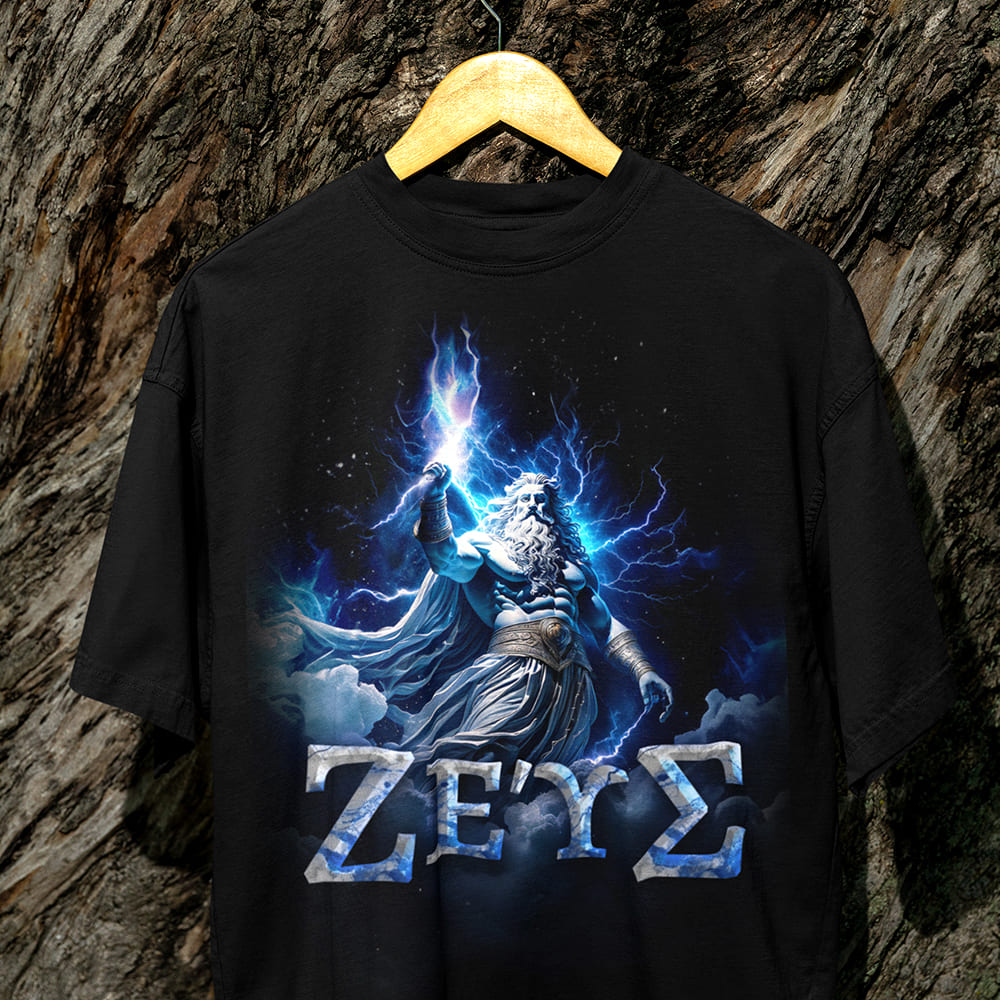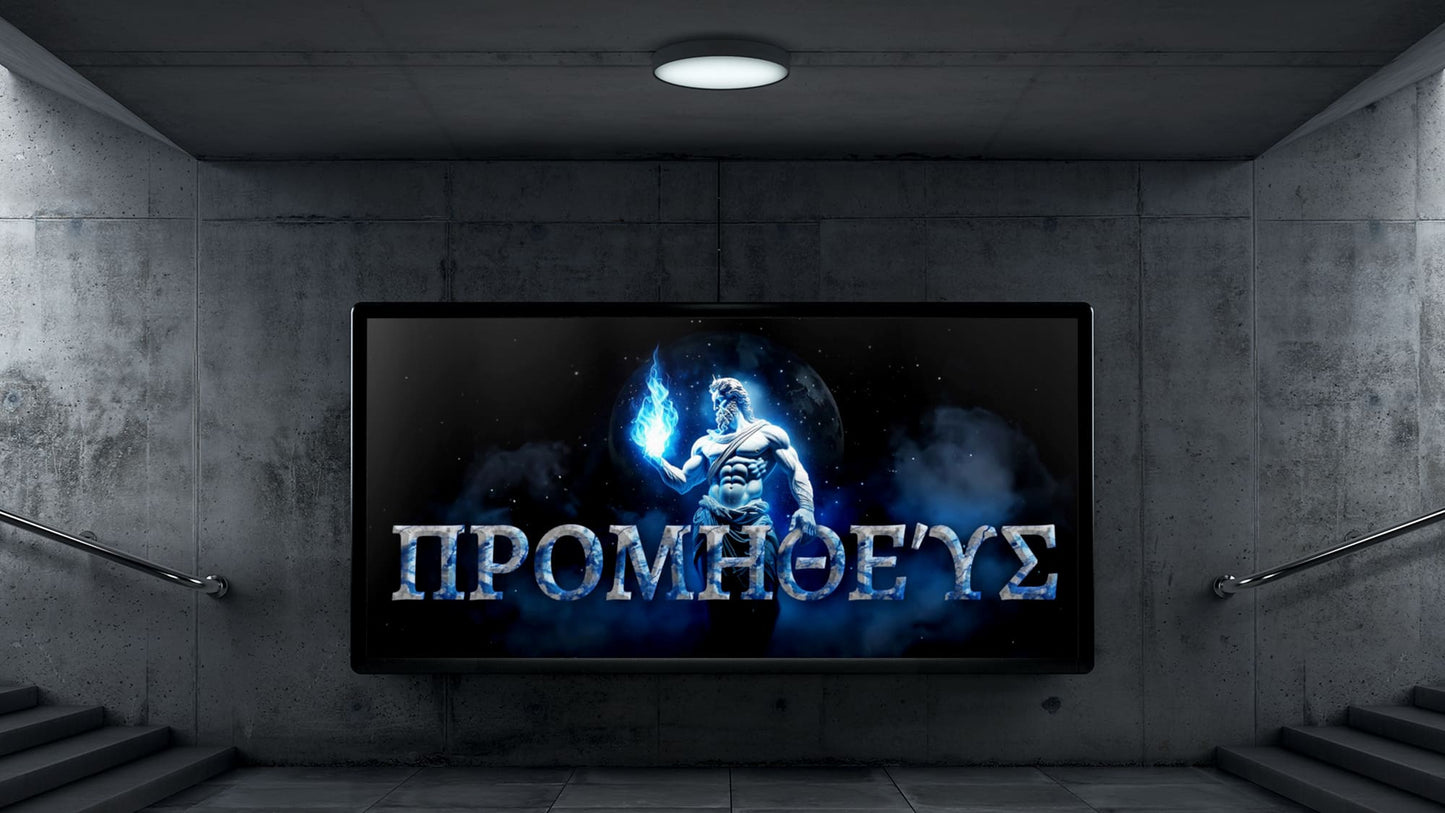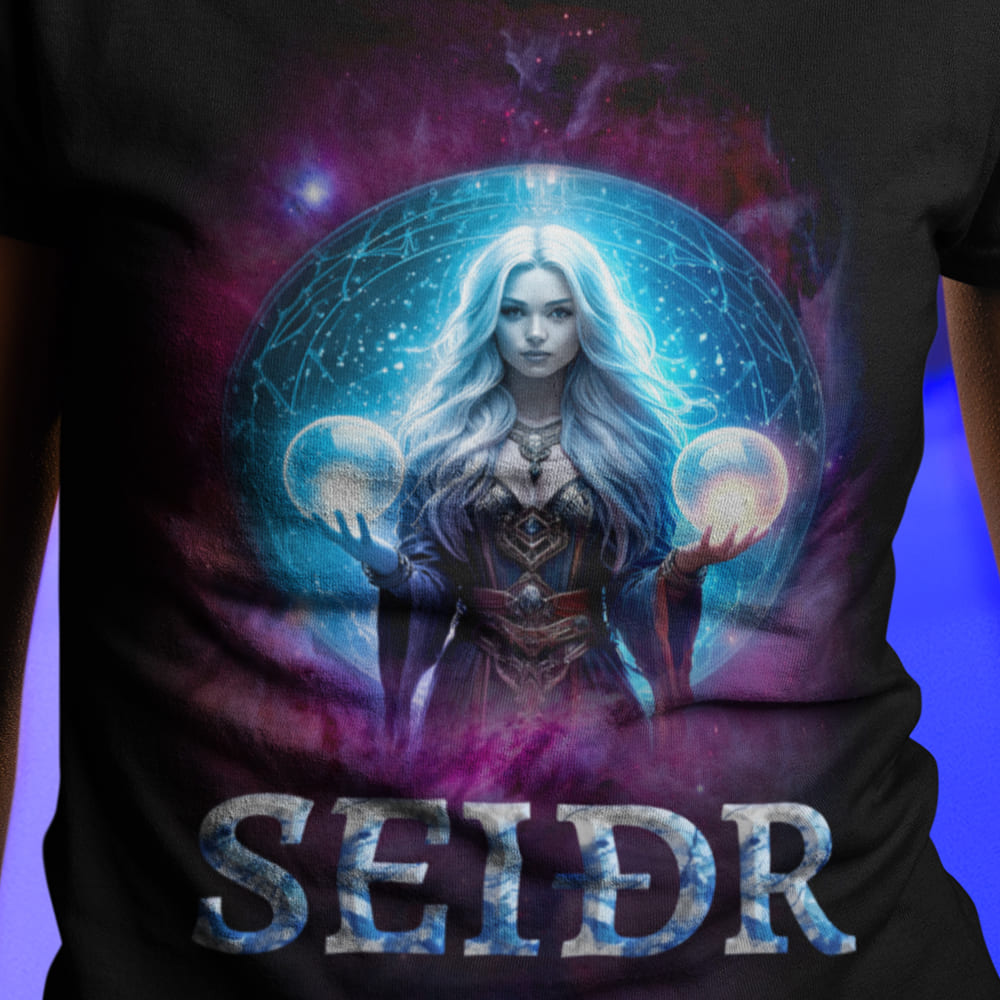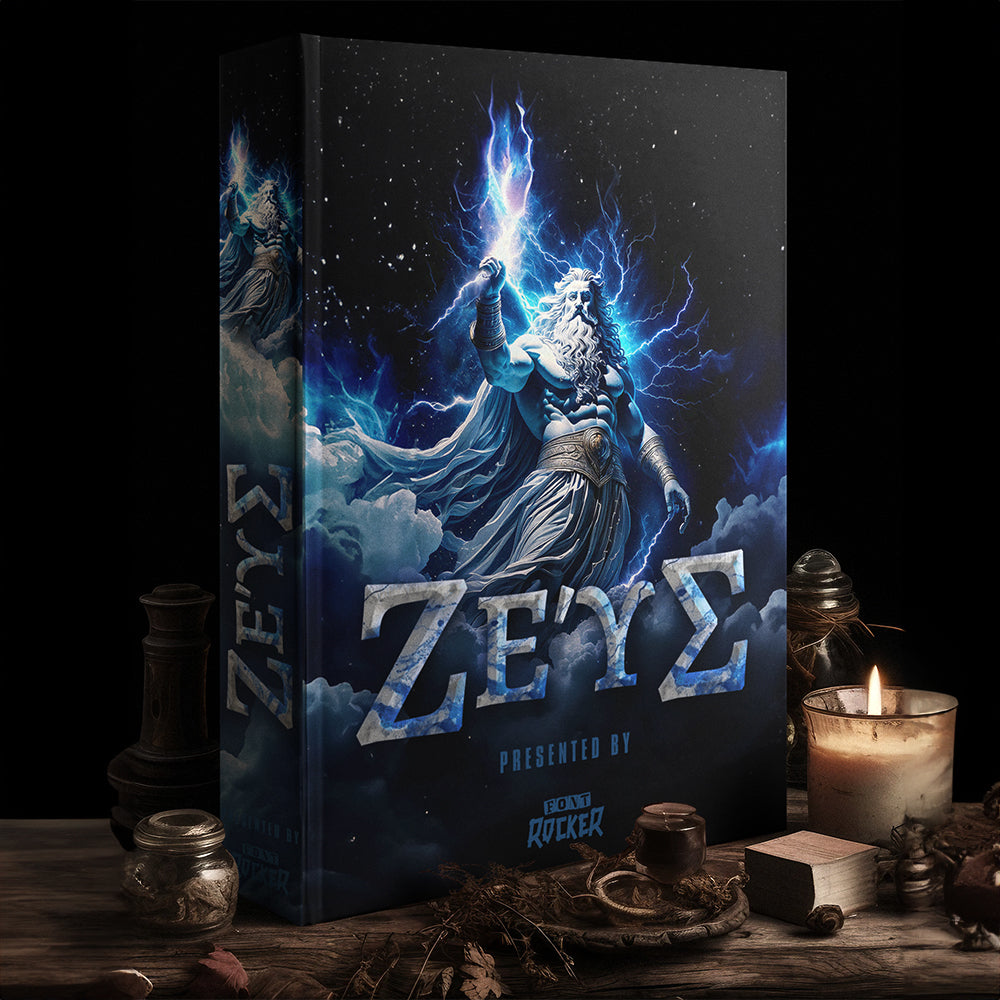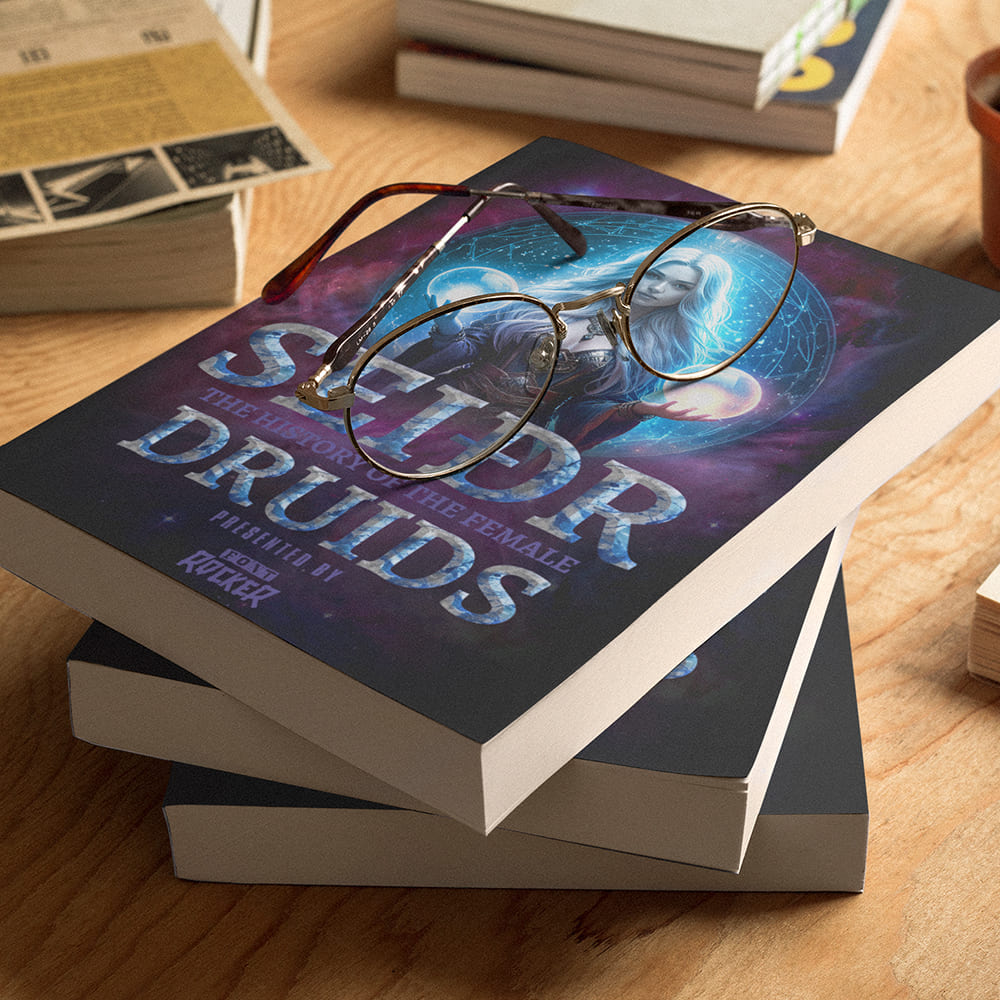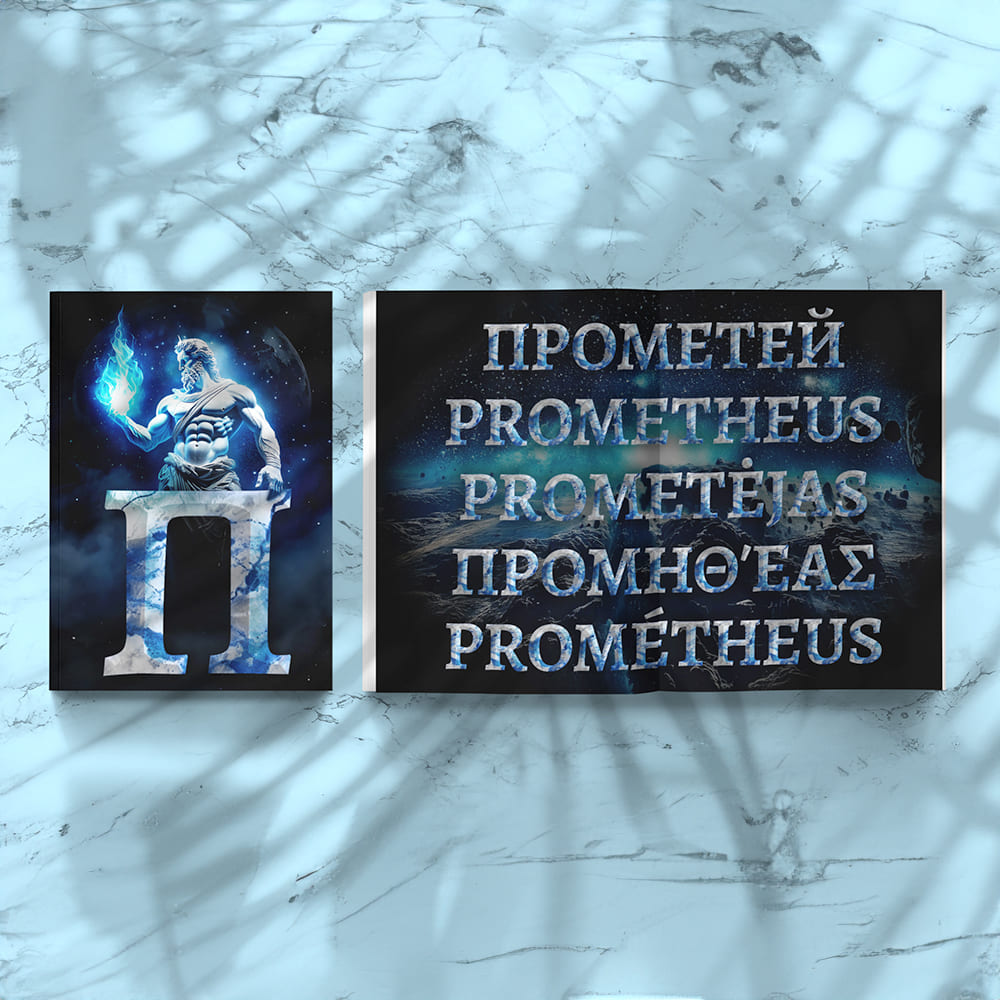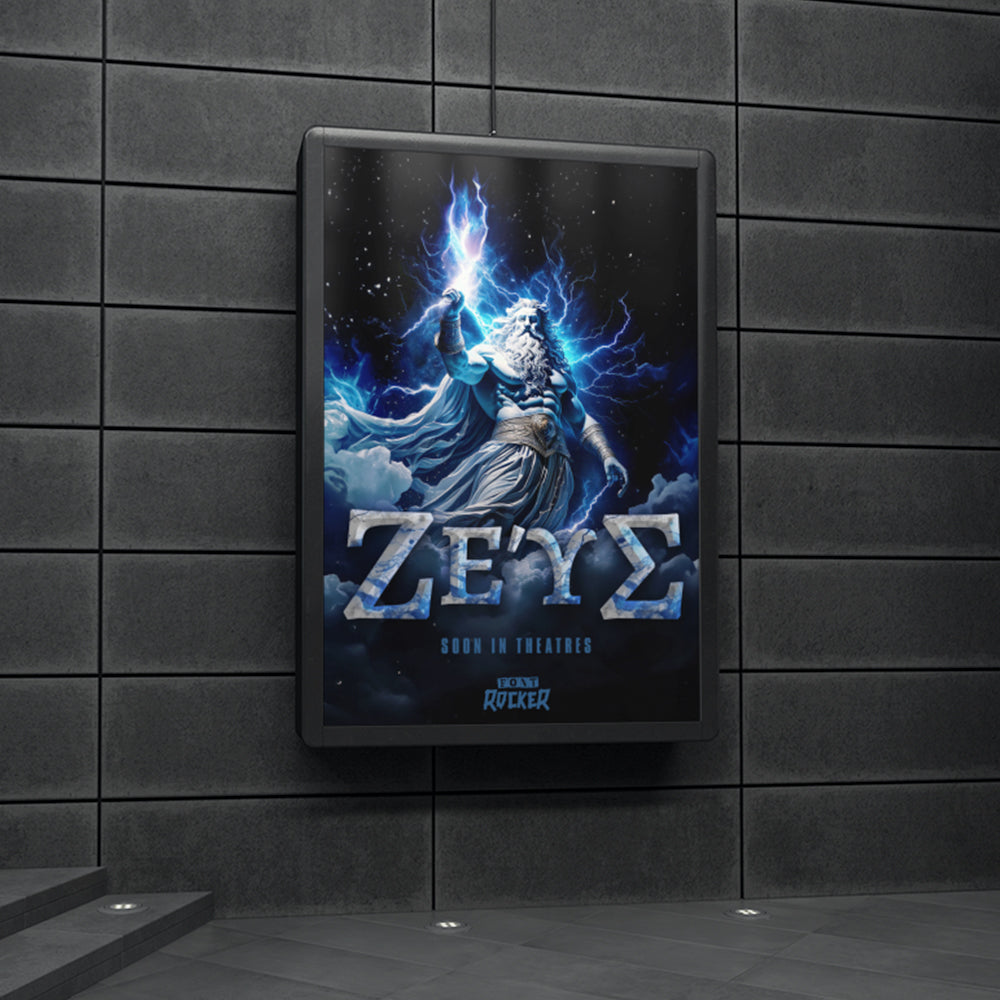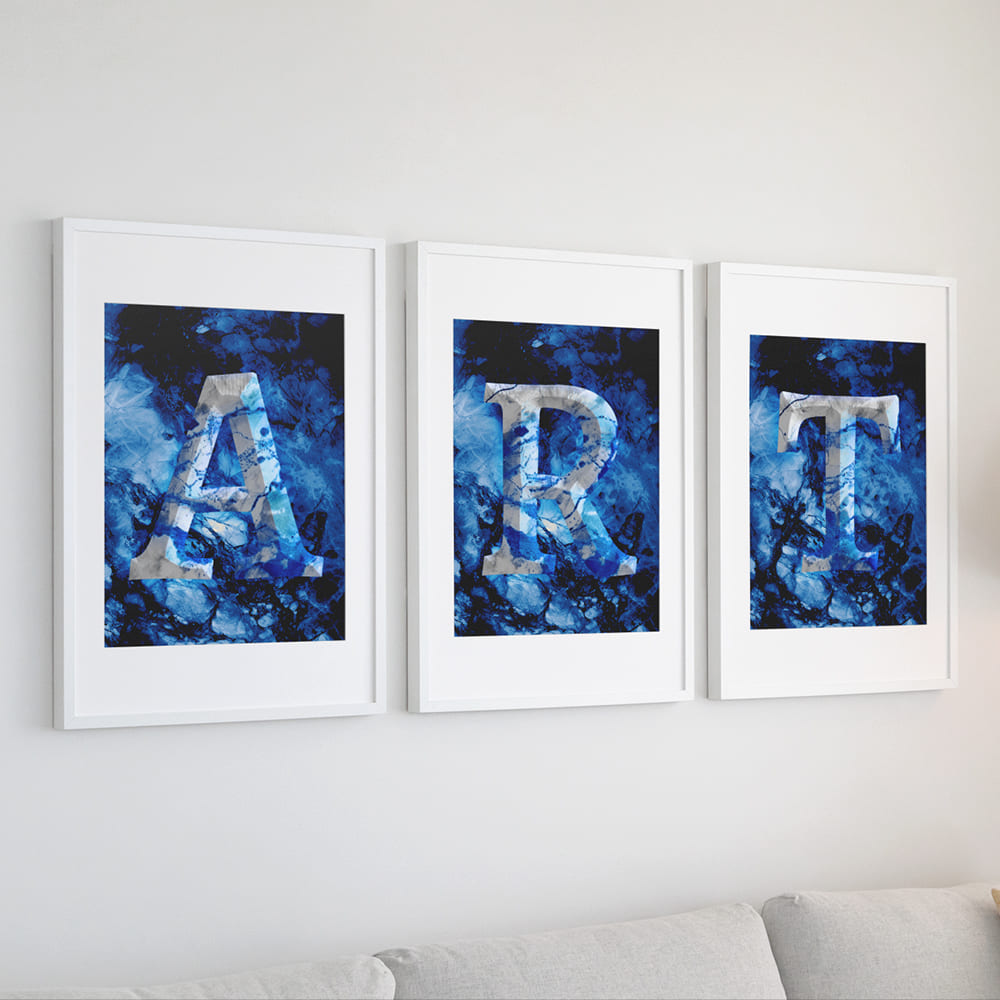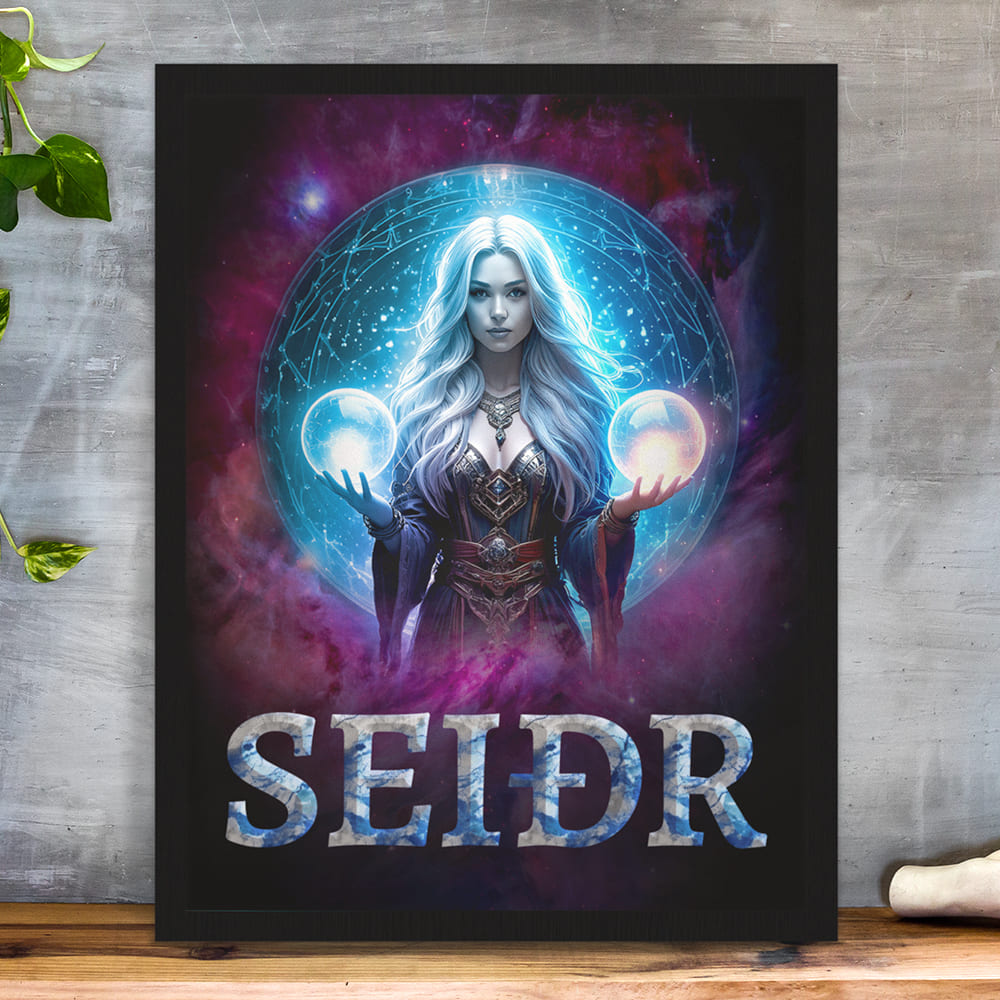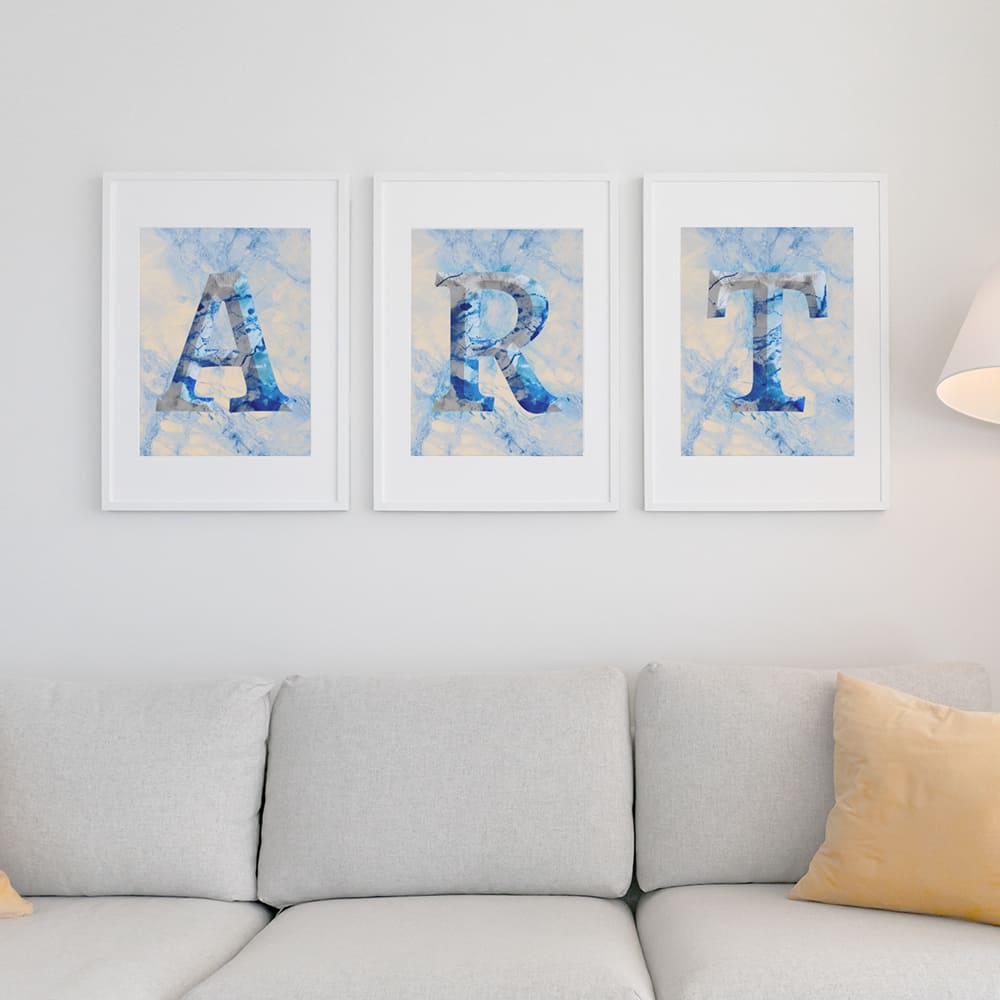
Prometheus Font
Divine, Powerful, Immortal 🔥⚔️⚡
Rising from the flames of creation comes a font that embodies light and power—the Prometheus Font! Inspired by Greek mythology, by Titans and gods, thunder and fire, this font brings an aura of immortality straight into your design.
Prometheus, the bringer of fire—the Titan who defied the gods and gifted divine fire to mankind. A bold act of defiance, rebellion, and revolution. This burning legacy lives on in this font: mighty, heroic, and charged with divine energy.
Why Choose the Prometheus Font?
🔹 Forged by Titans – Made for Heroes – A typeface that looks as if it were carved into ancient Greek temples or shaped from celestial lightning.
🔹 Perfect for Epic Designs – Whether for movie posters, book covers, logos, or legendary branding projects, this font makes your design shine like sacred fire itself.
🔹 Powerful, Untamed, Unforgettable – A font that isn’t just read, but felt—like a voice from the past echoing into eternity.
🔥 EVERY FONT ROCKER FONT COMES WITH 324 GLYPHS & SUPPORTS OVER 115 LANGUAGES WORLDWIDE, INCLUDING CYRILLIC, GREEK & MORE.
Ignite the Divine Fire in Your Design!
With the Prometheus Font, you wield the strength of the Titans, the wrath of Zeus, and the flame of progress in your project. A font that changes the world—just like Prometheus himself.
🔹 Be bold. Be immortal. Choose the Prometheus Font.